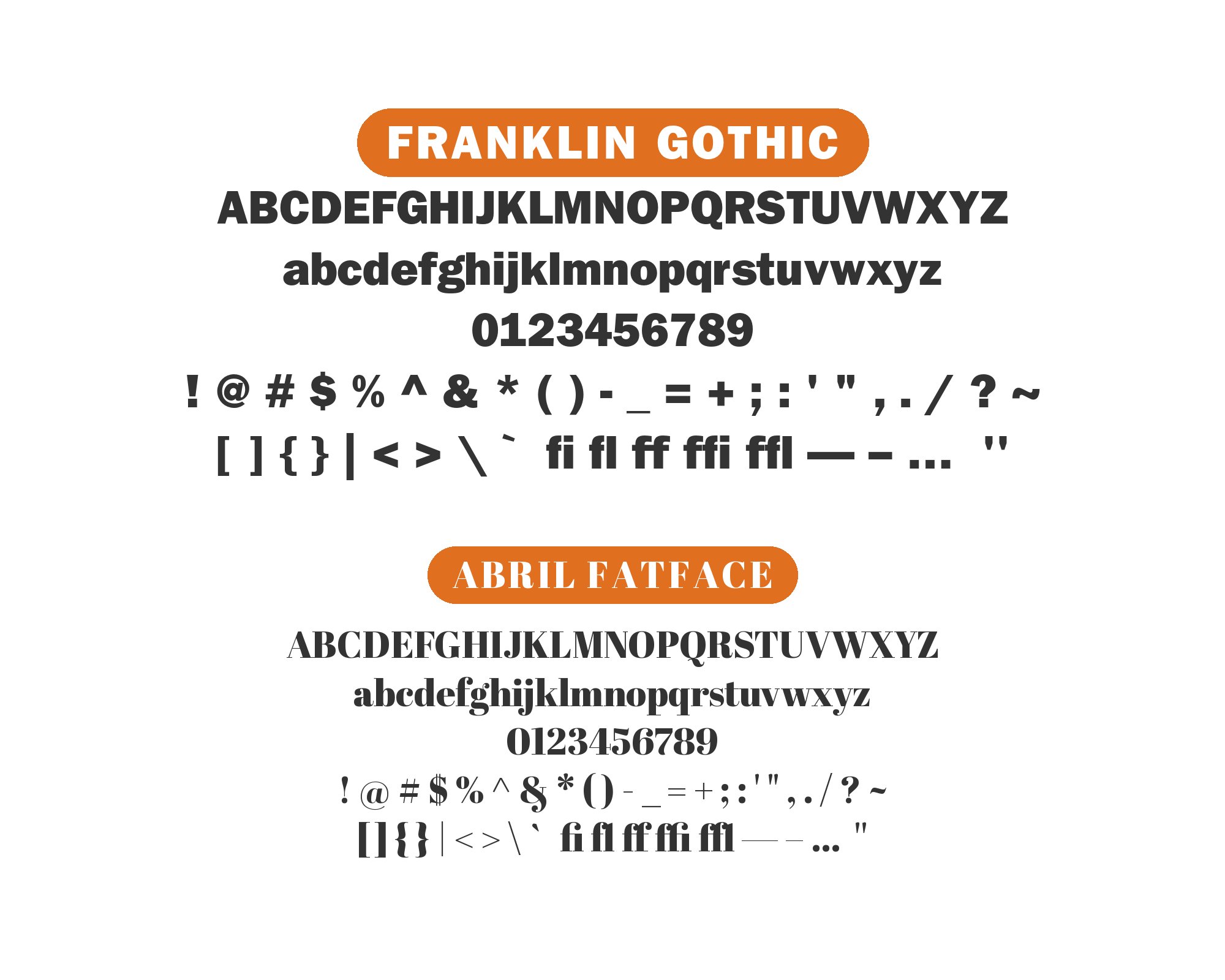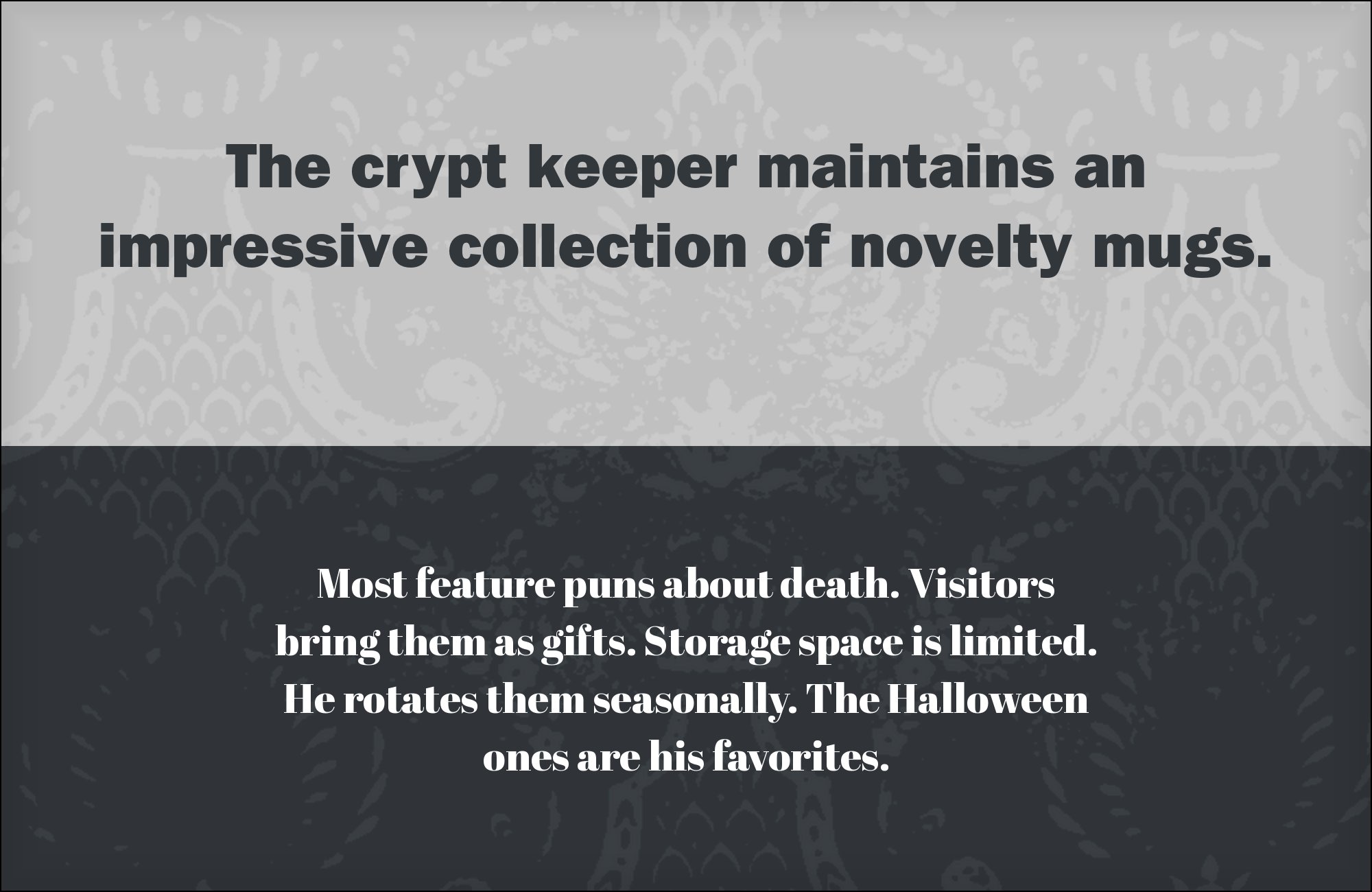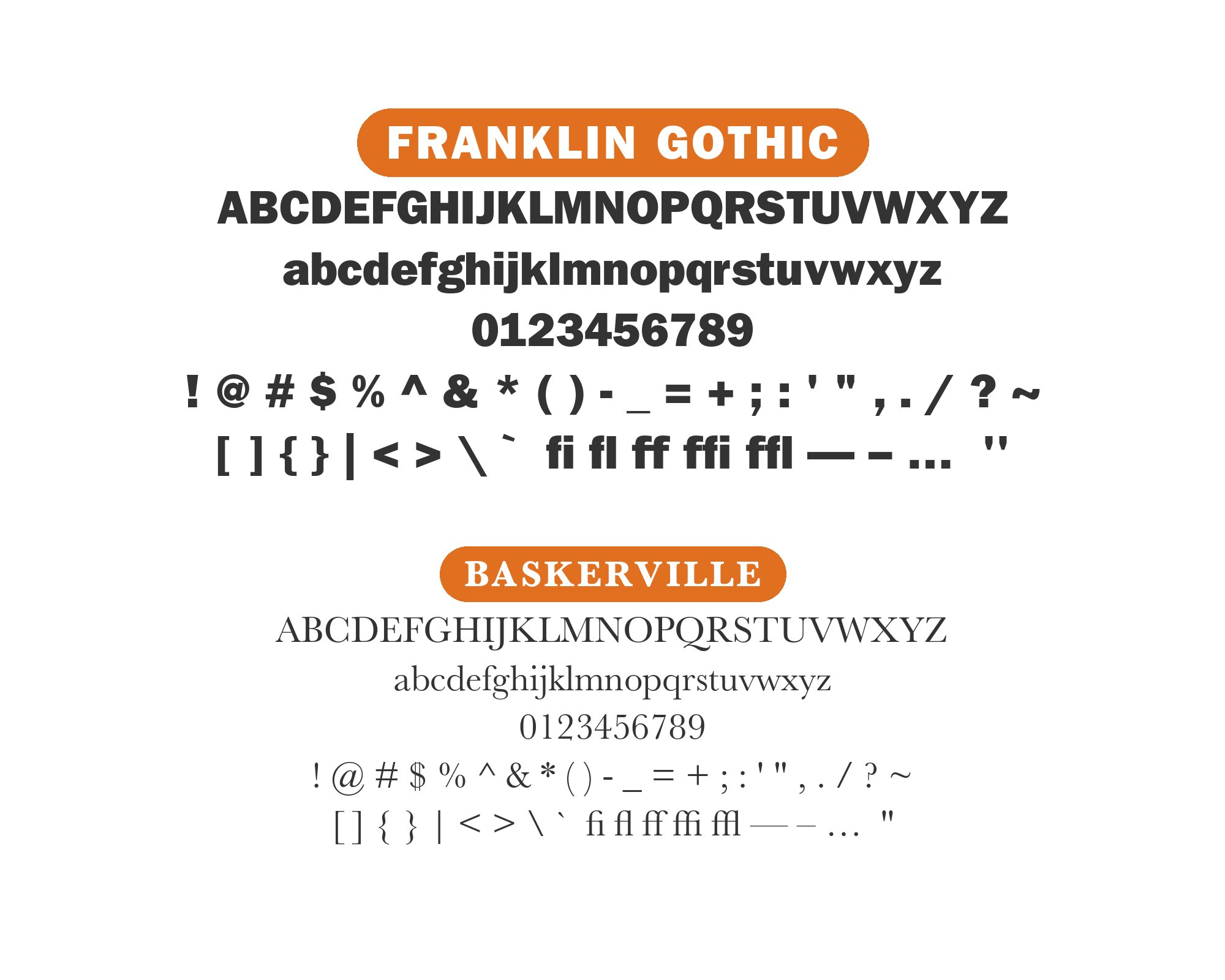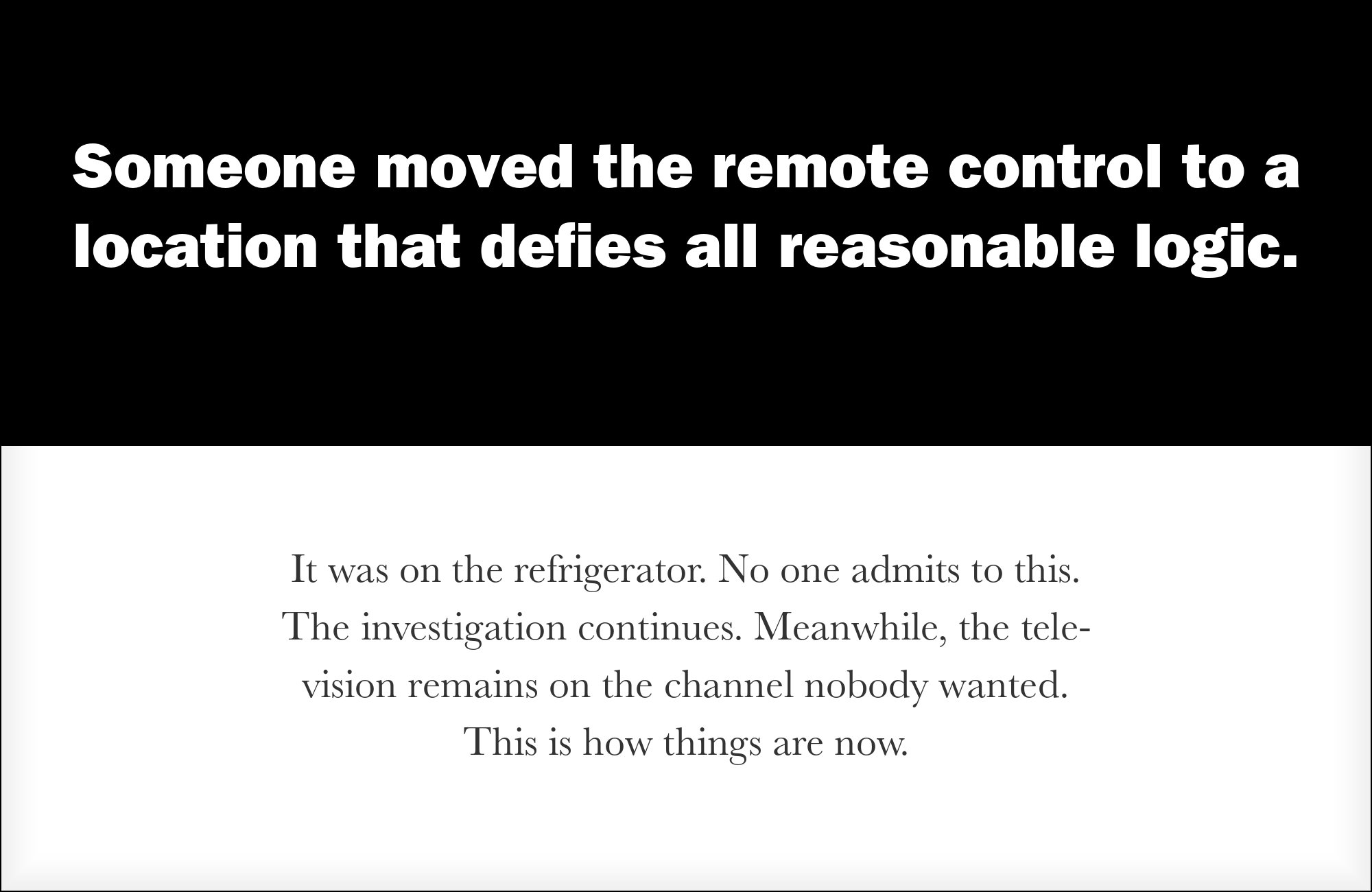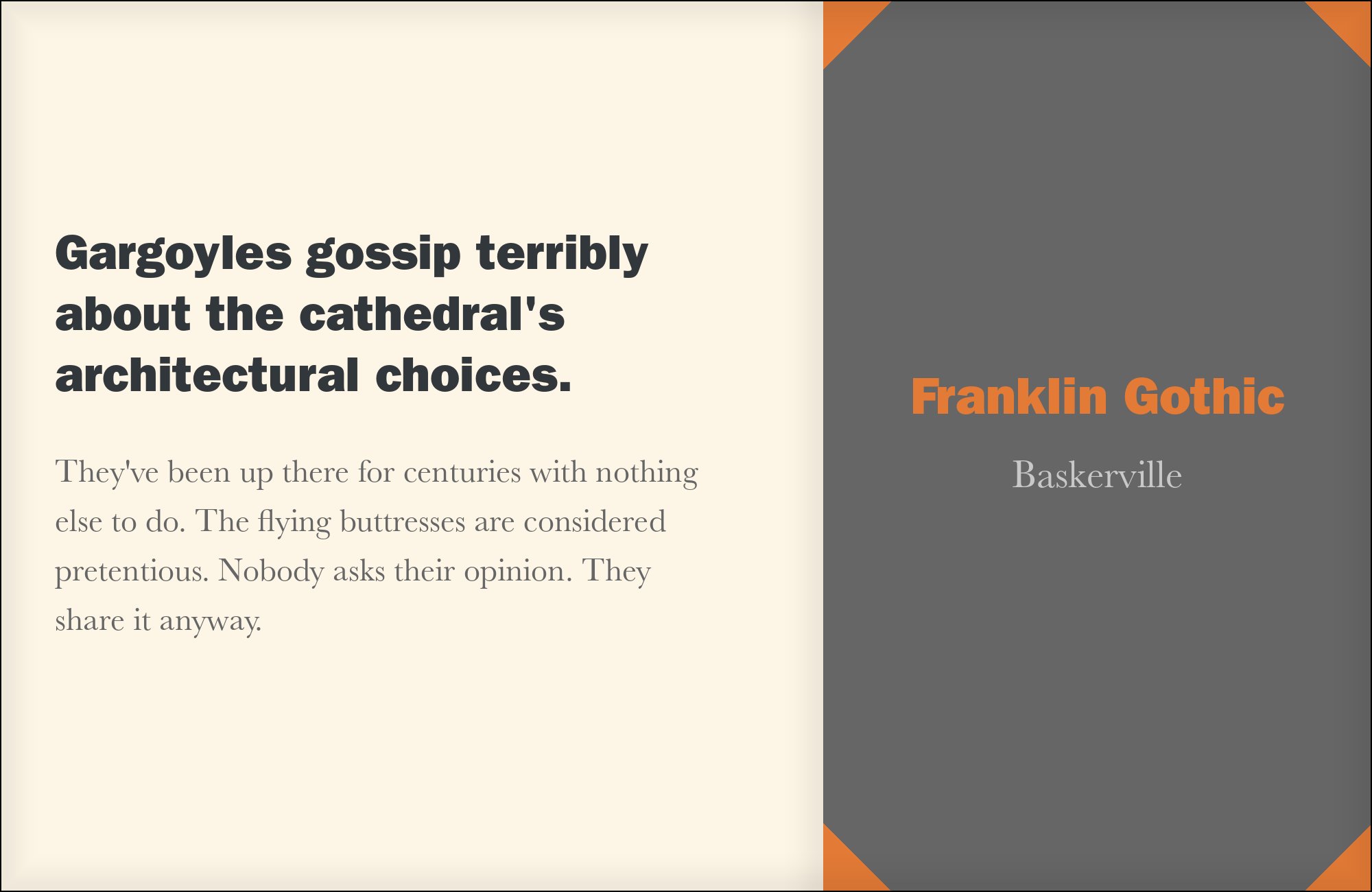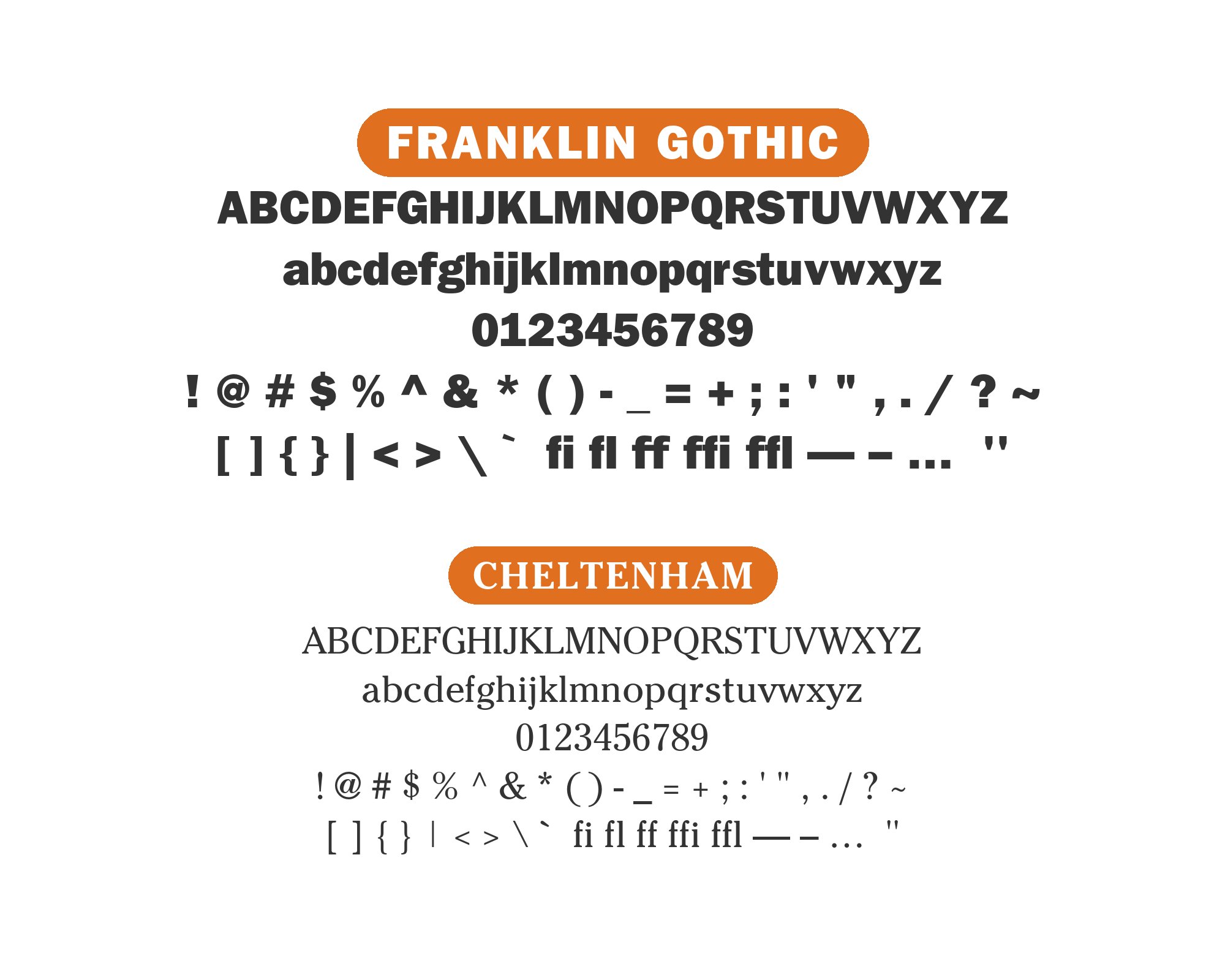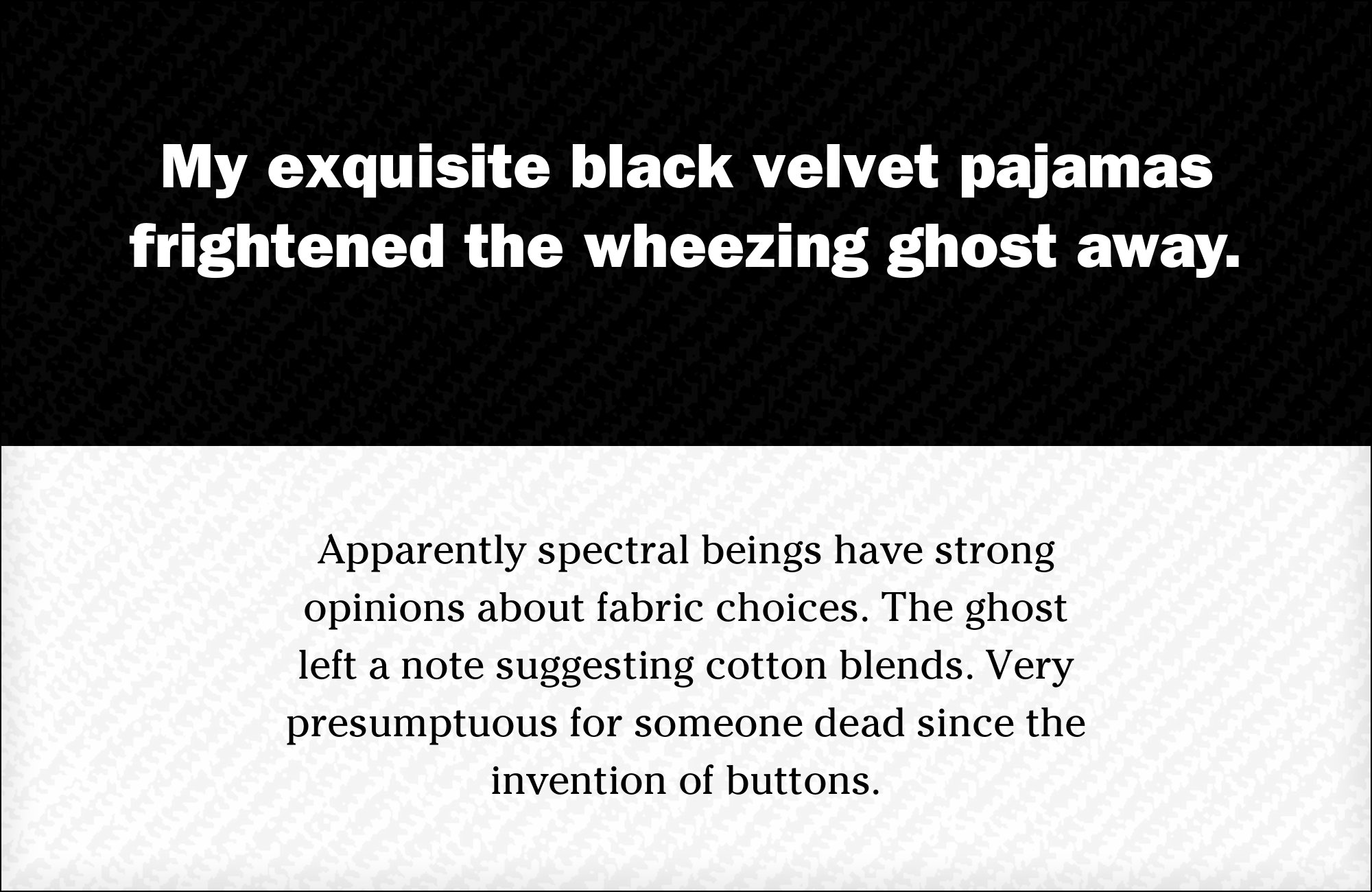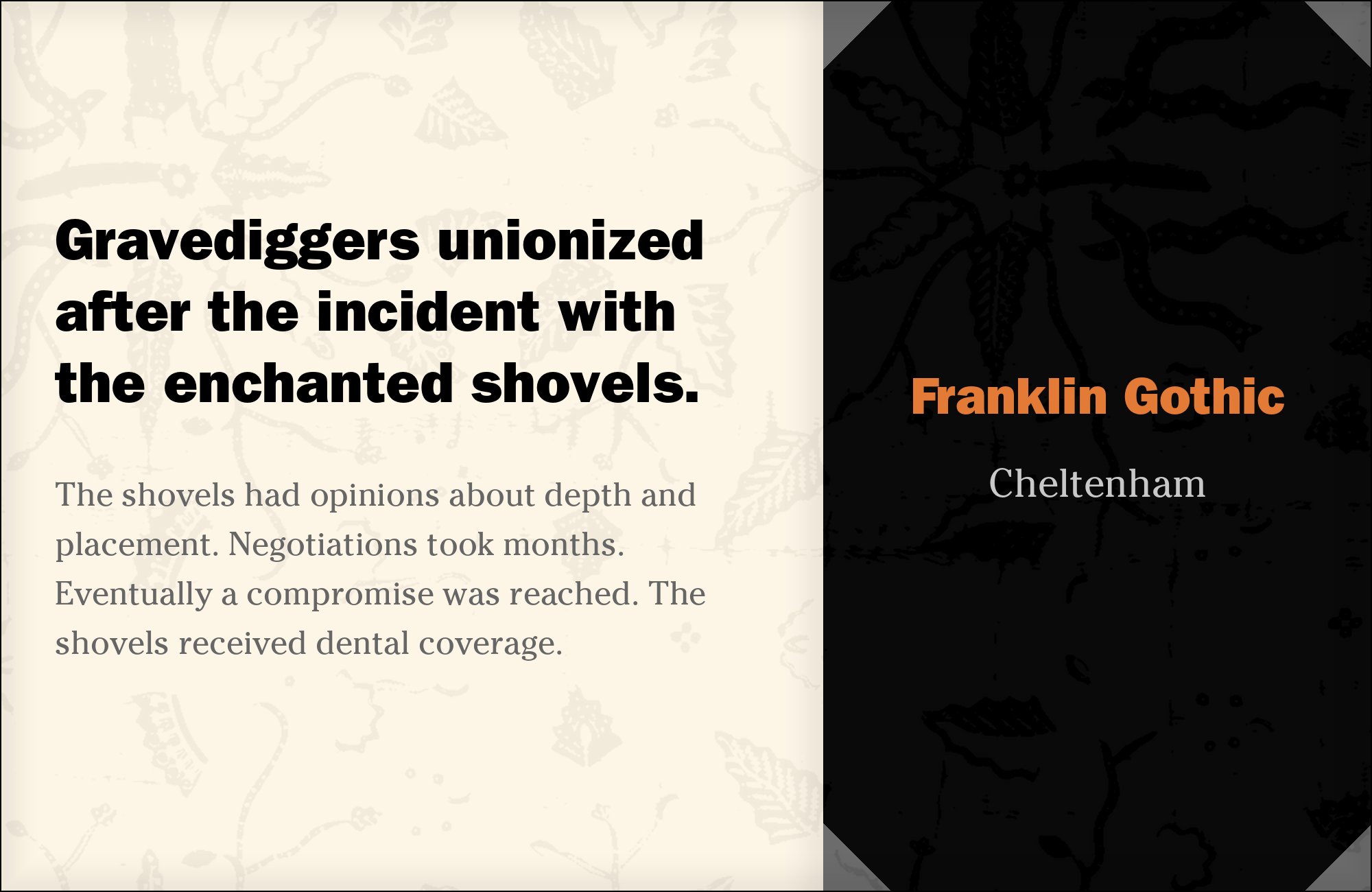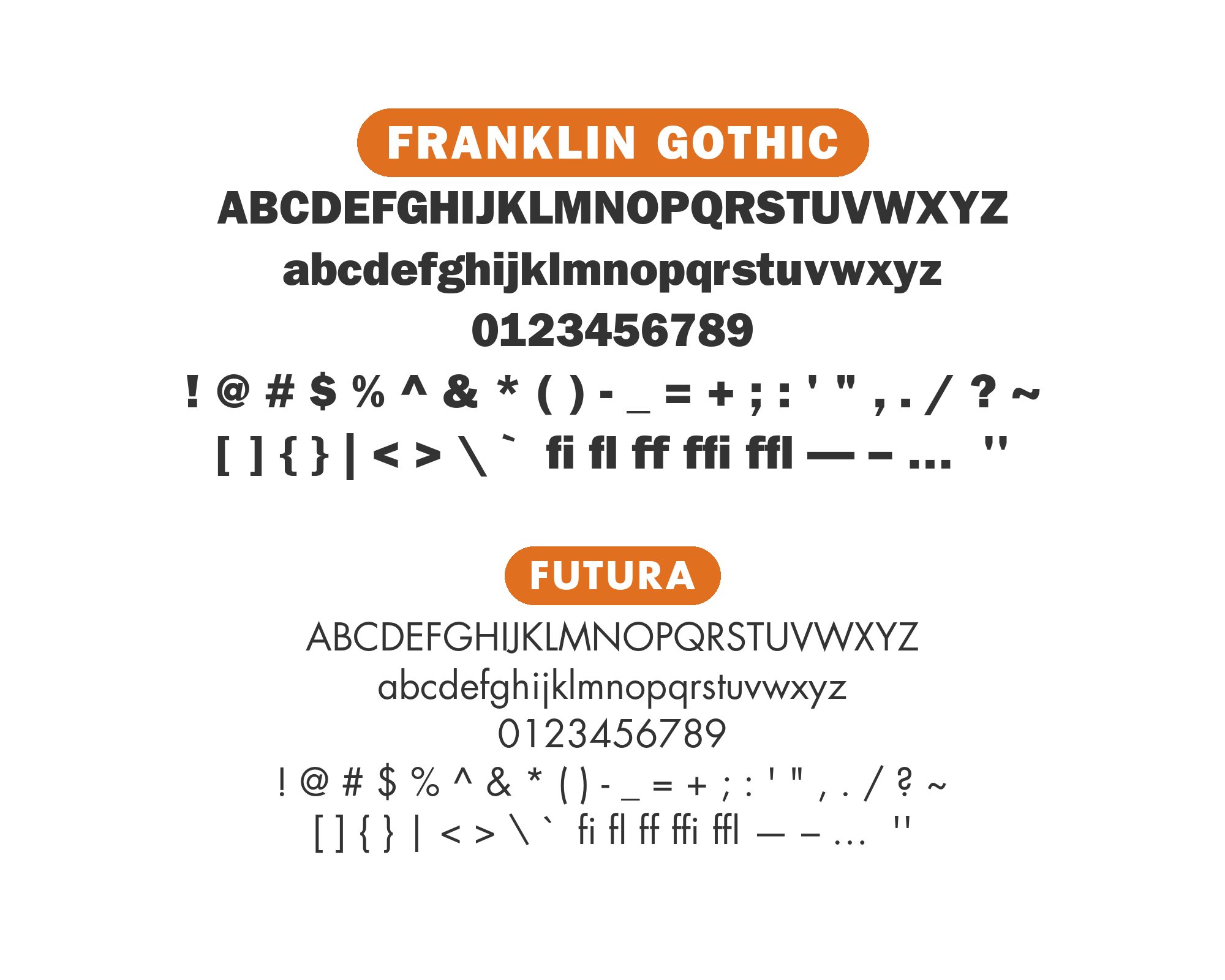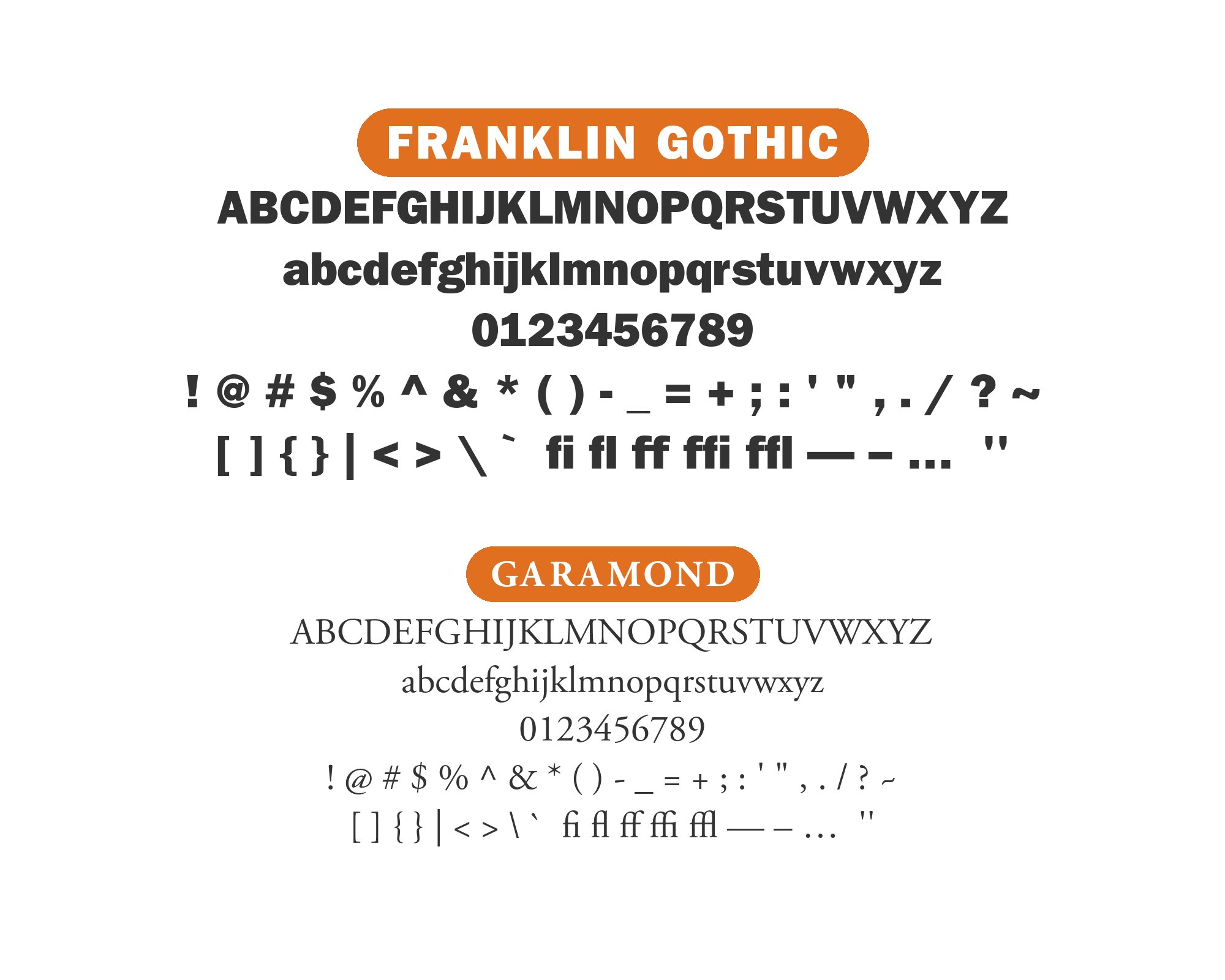
Franklin Gothic pairs great with Baskerville, Cheltenham and Garamond. All 14 pairings are shown below in real rendered specimens, with the reason each one works.
What fonts go with Franklin Gothic? 14 pairings are shown below, each with a reason it works.
Franklin Gothic is a working typeface, not a novelty. The combinations below are the ones that hold up in real work. Where a section shows a freely renderable stand-in, it names the face the source actually used. Here are 14 fonts that pair well with Franklin Gothic.
1. Baskerville
Typewolf’s own curated suggestion for this face — a transitional serif with enough weight to hold body text under Franklin Gothic’s blunt, heavy headline forms.
Get Coached2. Cheltenham
Both are workhorse newspaper faces (this exact pair runs NYT Cooking and NYT Food Festival), so headlines and long-form text share the same no-nonsense editorial register.
3. Garamond
An old-style book serif under a grotesque headline gives the page a historical anchor against Franklin Gothic’s early-20th-century industrial weight.
4. Georgia
A screen-tuned serif with a large x-height keeps body copy legible at small sizes while Franklin Gothic carries the bold display work — the pairing on Time’s own website, and Time.com is itself one of the live sites Typ.io tracks running Franklin Gothic URW with Georgia.
Fix That5. News Gothic
The two grotesques are close cousins in the same American gothic lineage, so swapping between them (as seen across three different vintage record sleeves) reads as one family rather than a clash — useful when a project wants a single gothic voice at two weights.
6. TeX Gyre Schola
An open revival of Century Schoolbook, based on URW’s Century Schoolbook L. Its forerunner Century Expanded sits under Franklin Gothic on the 1967 Bantam cover of On Aggression — even, wide-set letterforms for steady, readable body text that lets Franklin Gothic’s condensed headlines stay the loud element on the page.
7. Helvetica
Two grotesques from different eras placed side by side (as on the 1976 posters for All the President’s Men): Franklin Gothic’s rougher, older-cut forms give texture that pure Helvetica lacks on its own.
Book a Session8. Futura
Geometric sans against Franklin Gothic’s more human, irregular grotesque strokes — a contrast of construction logic (compass-and-ruler vs. hand-cut) rather than just weight.
9. Trade Gothic
A second American workhorse grotesque, narrower and more mechanical than Franklin Gothic — real-site use (And/Or, listed on Typewolf with Franklin Gothic and Trade Gothic) shows the two splitting duty by cut rather than by contrast, one for tight extended display, one for the rest of the page.
10. Univers
Type designer Karel Martens deliberately reached for Franklin Gothic — not Helvetica — for his Filmhuis Nijmegen theatre posters, “to escape the popularity of the Helvetica,” and set the companion text in Univers on an IBM Selectric Composer. The result pairs Franklin Gothic’s warmer American character against Univers’s cooler, gridded Swiss system — genuinely different temperaments rather than shades of the same neutral sans.
11. Times New Roman
A dense, small-size transitional serif built for running text sits underneath Franklin Gothic’s blunt display forms (the source names the Times family, which Times New Roman belongs to, seen together with Helvetica and Georgia on the site “The Bright Future of Car Sharing” in a Codrops round-up of web type combinations) — one of the oldest, most neutral body serifs against one of the oldest American display grotesques, a pairing that reads as plain utility rather than styling.
12. Abril Fatface
A high-contrast display didone with dramatically thick-thin strokes gives Franklin Gothic’s flat, even grotesque weight a decorative counterpoint for headlines and pull-quotes. Typ.io records Abril Fatface with Franklin Gothic URW on pilcrow.im.
13. Source Serif 4
Typ.io’s real-site data shows Franklin Gothic URW paired with Skolar, a serif built for dense academic and editorial text, on working.is — Source Serif 4, Adobe’s own transitional serif for sustained reading, stands in here as the freely renderable equivalent, giving long-form body copy the same scholarly steadiness while Franklin Gothic’s blunt, industrial forms stay reserved for headlines and captions.
14. Lora
Typewolf’s archive lists Freight Text with Franklin Gothic on The Manual (21 Sep 2014). Typ.io’s real-site data shows Franklin Gothic URW paired with Freight Text, a contemporary book serif with warm, humanist proportions, on samuel-medvedowsky.com. Lora, a calligraphic-rooted contemporary serif with moderate contrast, stands in here as the freely renderable equivalent, giving Franklin Gothic’s blunt industrial headline forms a warmer body partner underneath while Franklin Gothic stays the only loud element on the page.
There are no absolute rules for font pairing, just principles to guide you. The key is contrast—in weight, in style (serif vs. sans-serif), or in personality. Franklin Gothic is versatile enough to play well with many different typefaces.
Trust your eye, experiment freely, and remember that the best pairing is the one that serves your content and audience. Typography should enhance communication, not complicate it.